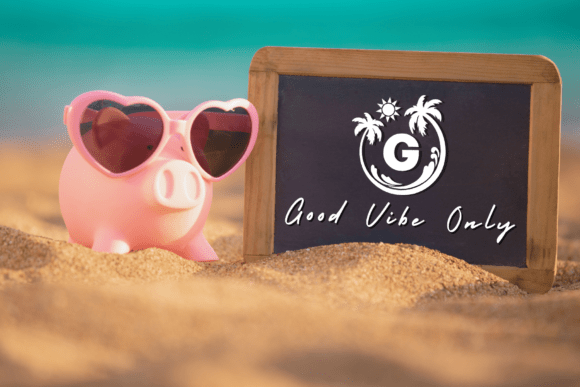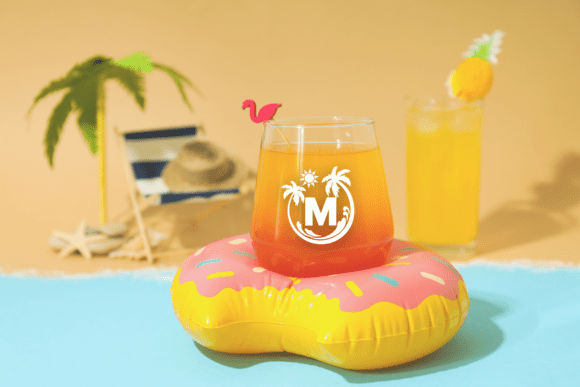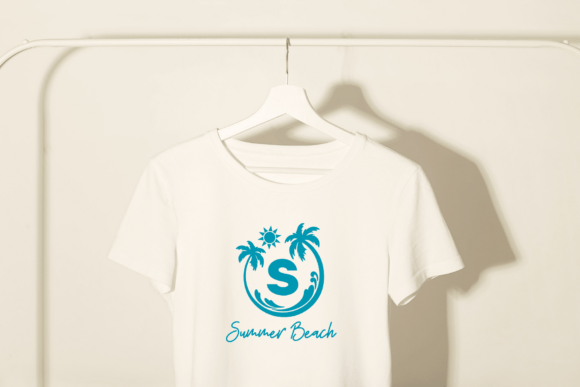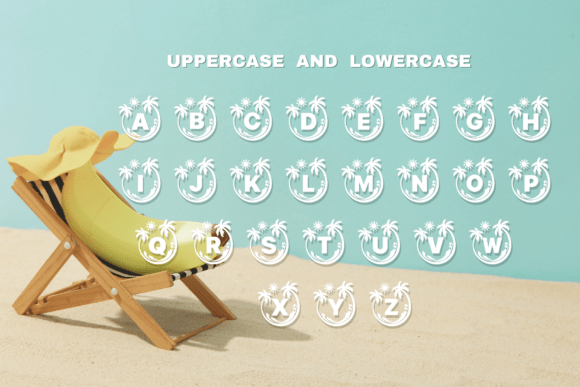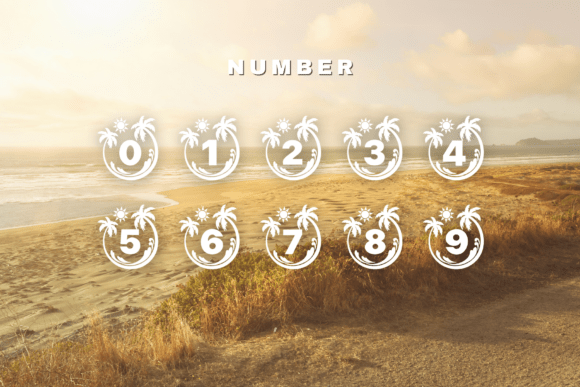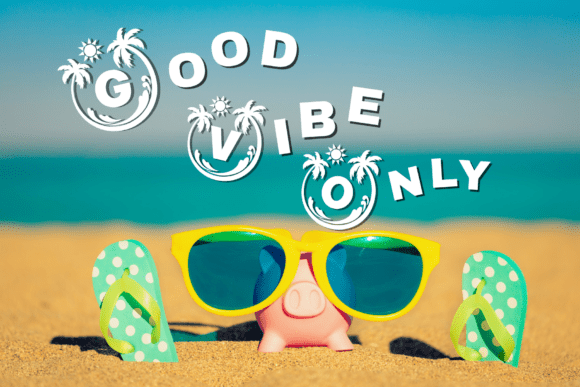
Introduction to Hello Summer Monogram Font
Hello Summer Monogram is a versatile and authentic decorative font.
You can use these monograms on gift tags, cards, pillows, invitations, wall art, t-shirts, mugs and anything else you can think of .
Key Features of Hello Summer Monogram Font
Why Choose Hello Summer Monogram Font?
Hello Summer Monogram Font offers exceptional quality and versatility, making it a valuable addition to your design toolkit. Whether you’re creating for personal projects or commercial use, Hello Summer Monogram Font delivers professional results.